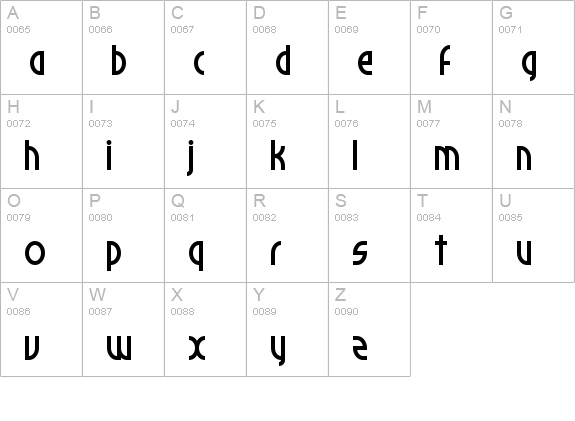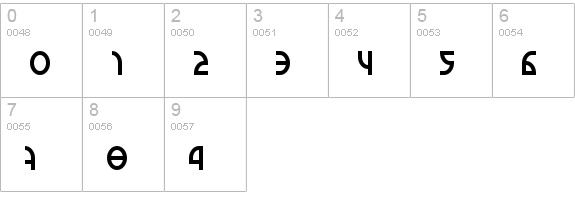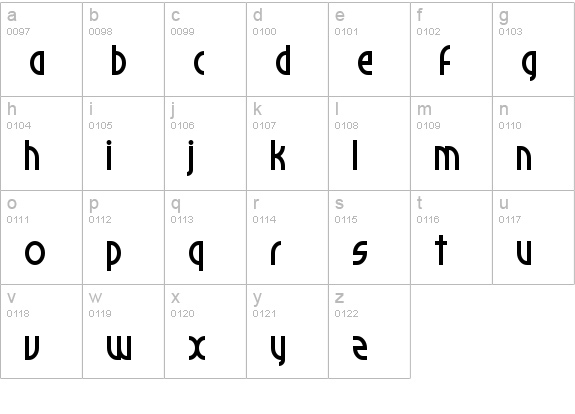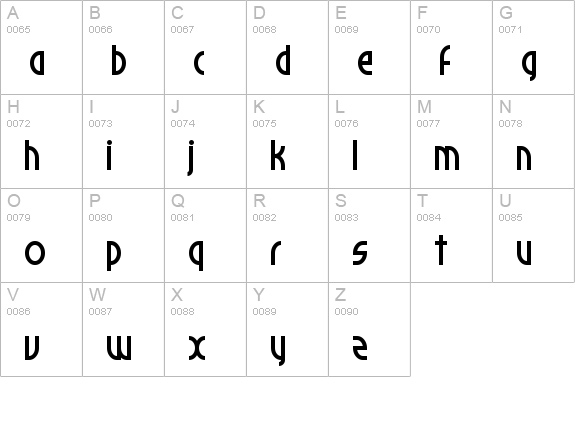
Palomino font is a stunning display typeface that effortlessly combines elegance and modernity. With its sleek lines and delicate curves, this font is perfect for adding a touch of sophistication to any design project. Palomino font is versatile and can be used for various purposes, including headlines, logos, invitations, and more. Its clean and legible letterforms make it easy to read, while its unique style adds a distinctive flair. One of the standout features of Palomino font is its extensive character set. It includes uppercase and lowercase letters, numerals, punctuation marks, and a wide range of special characters. This allows you to fully express your creativity and create captivating designs. Not only is Palomino font visually appealing, but it is also free! Yes, you heard it right. Palomino font is freely available to download at FontsMarket.com. This means that you can access this beautiful font without spending a dime, making it an excellent choice for designers on a budget. Whether you are a professional graphic designer or someone looking to add a touch of style to your personal projects, Palomino font is a must-have. Its timeless elegance and effortless beauty are sure to elevate any design. So why wait? Head over to FontsMarket.com and download Palomino font today to bring your creative visions to life.